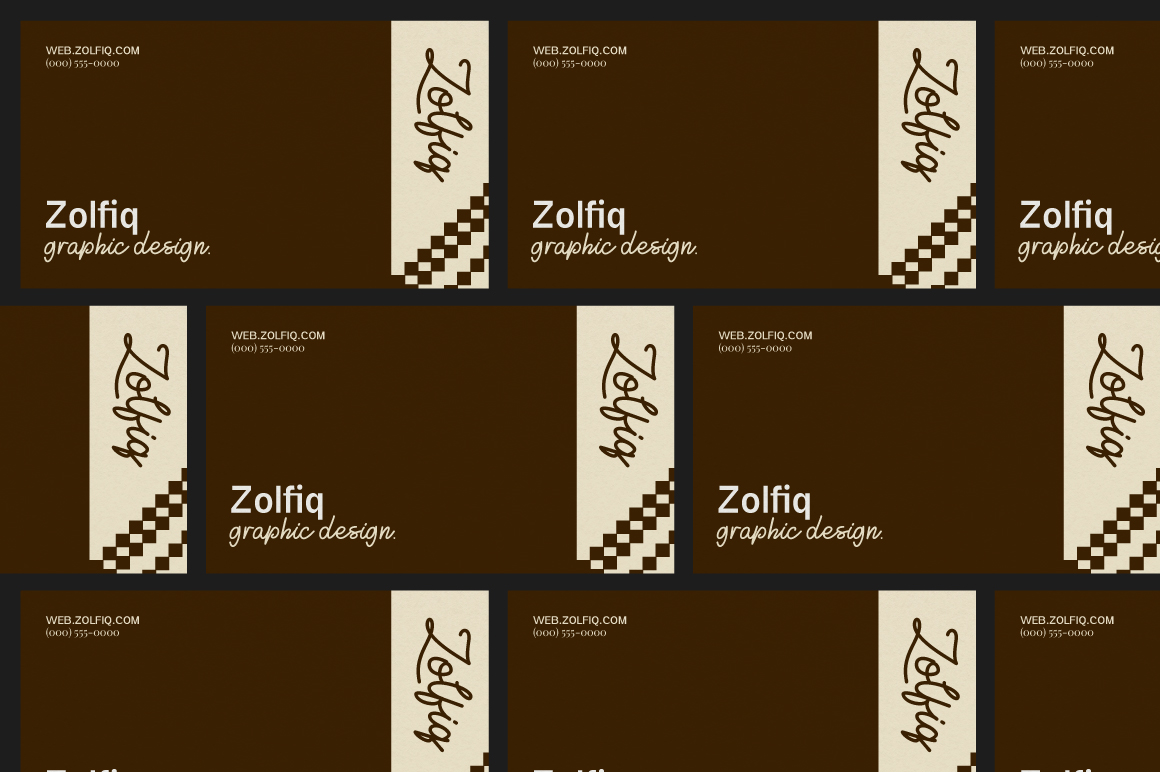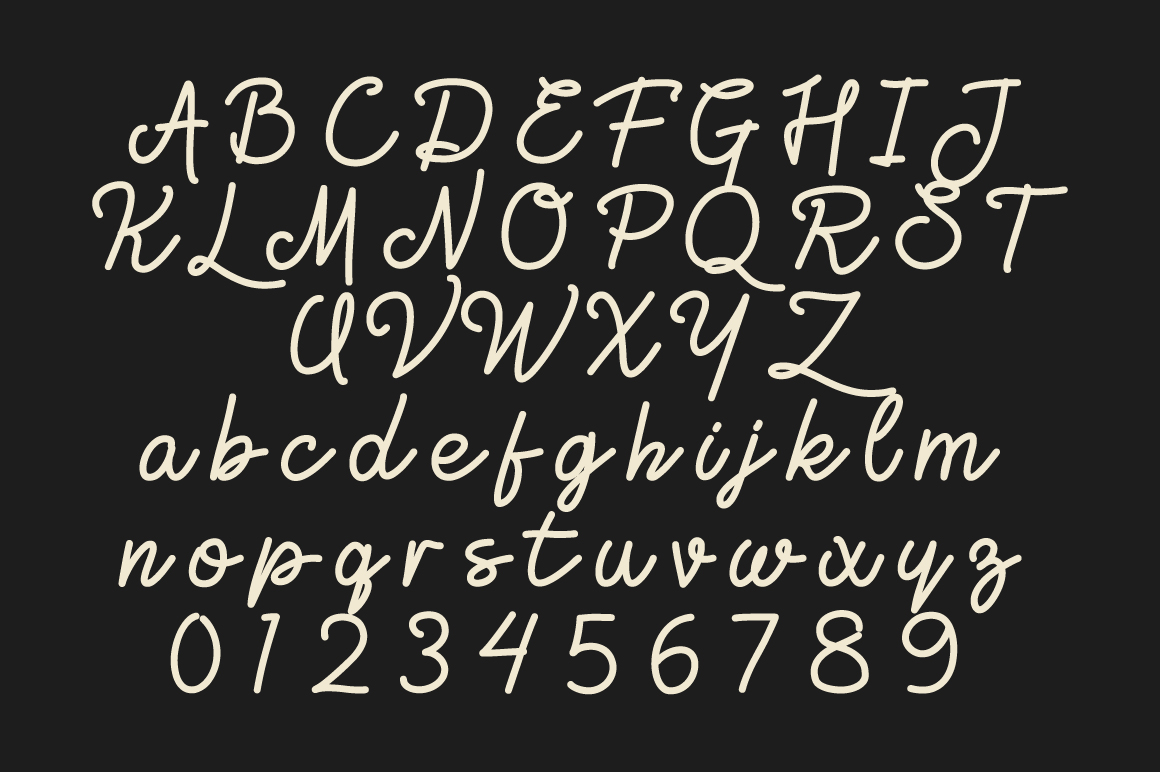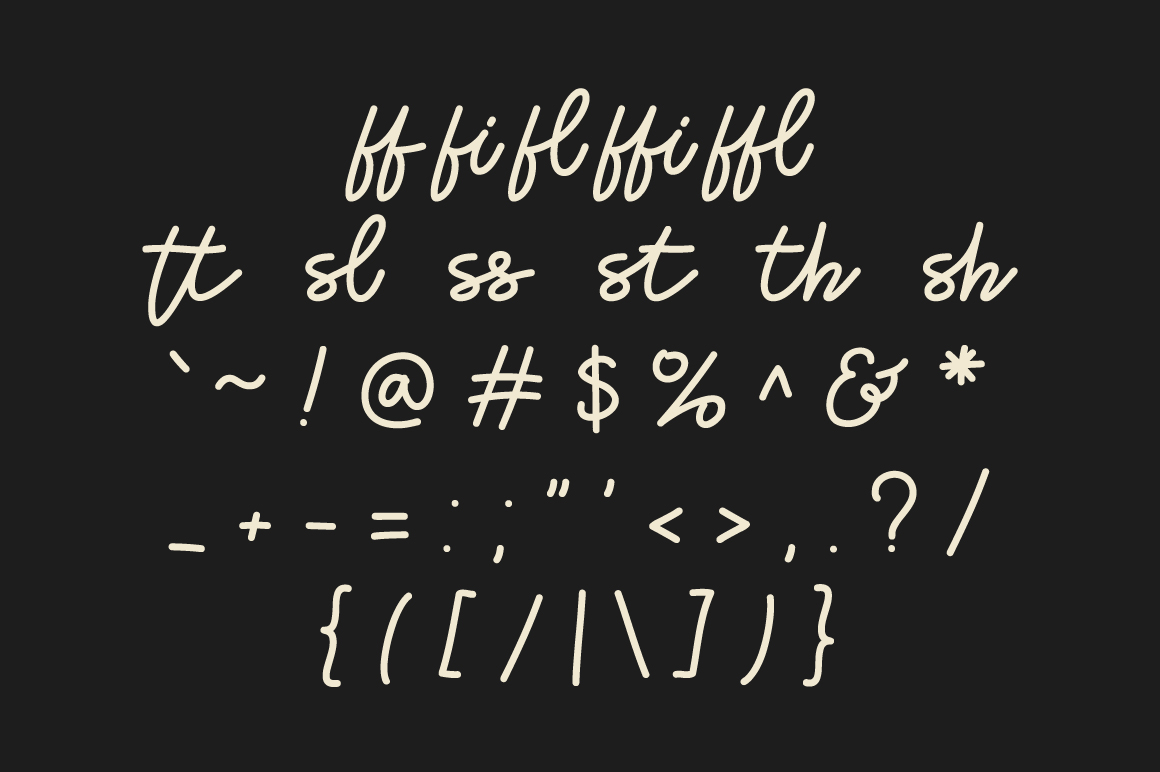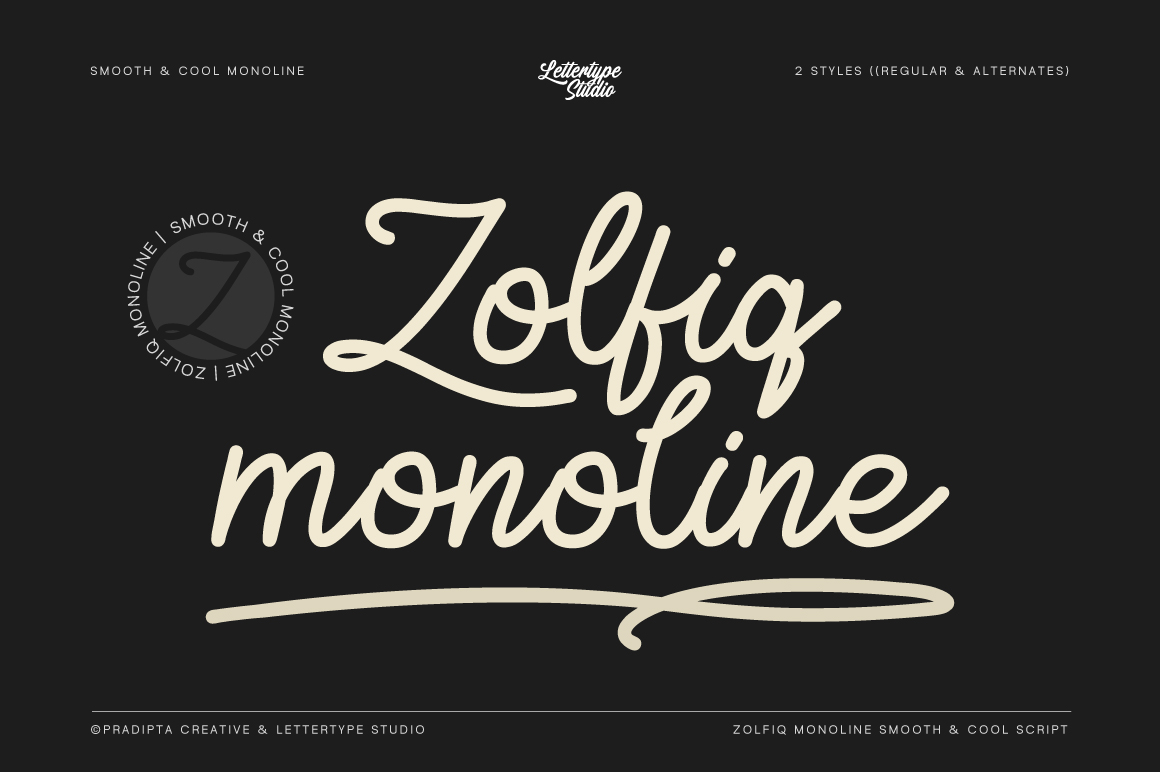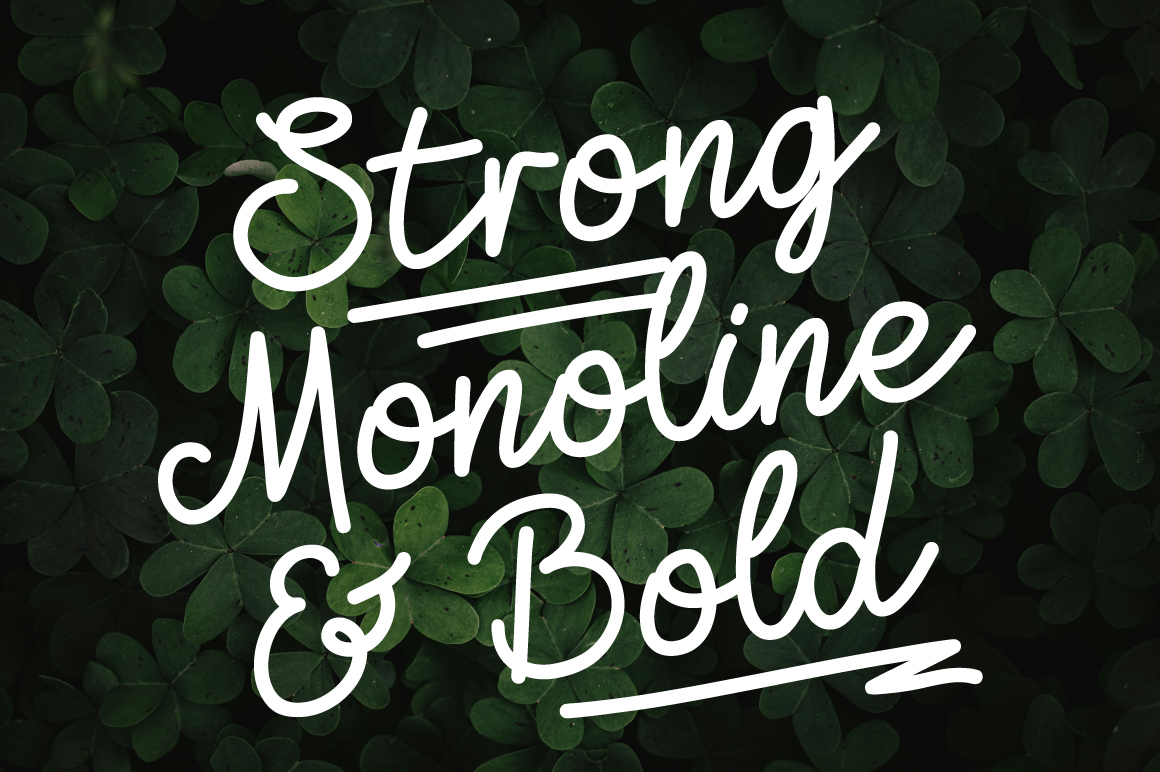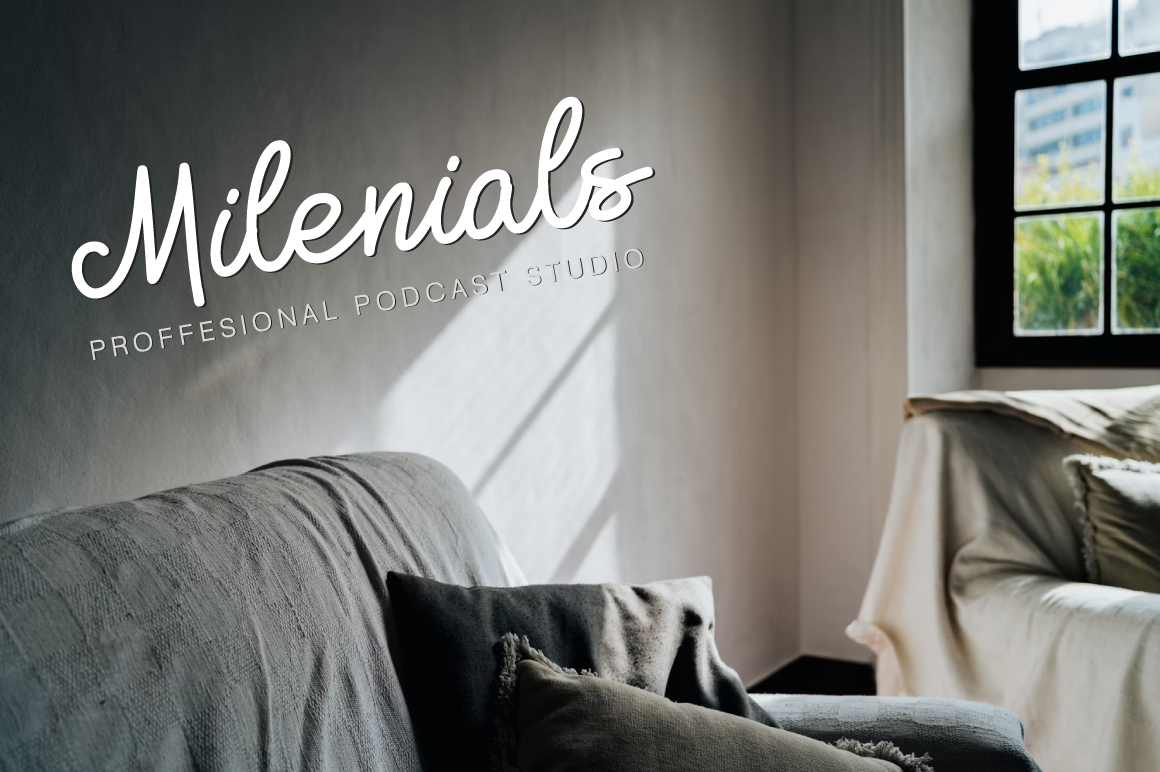
Zolfiq
Zolfiq Alternate
Zolfiq Monoline is a harmonious blend of elegance and modernity. These fonts, characterized by consistent line thickness, offer a clean and sophisticated aesthetic that enhances various design projects. From branding and logos to wedding invitations and digital media,
Their simplicity ensures readability, while their unique designs add a personal touch to any creation. Embrace the timeless appeal of monoline script fonts to elevate your design endeavors.
Zolfiq Comes With:
• Lowercase, Uppercase, and Ligatures
• Numerals & Punctuation
• Accented Characters
• Font Family (Regular & Alternate)
• Multiple Languages Supported
Zolfiq Monoline